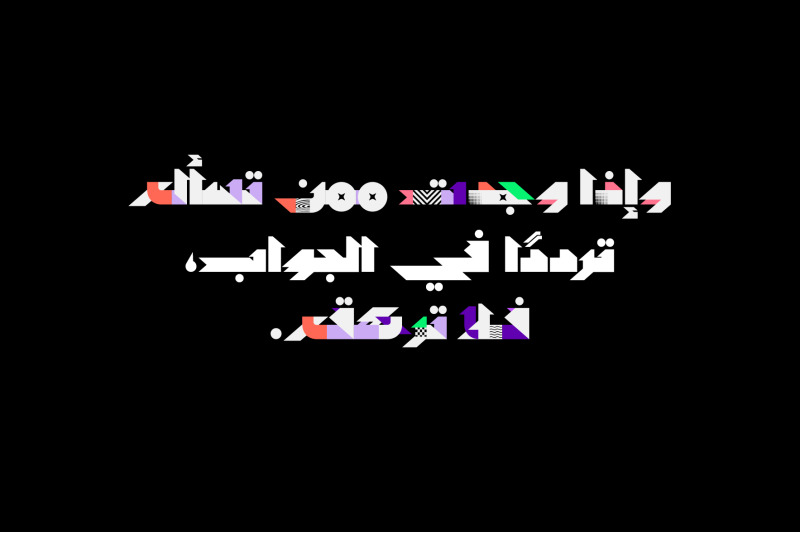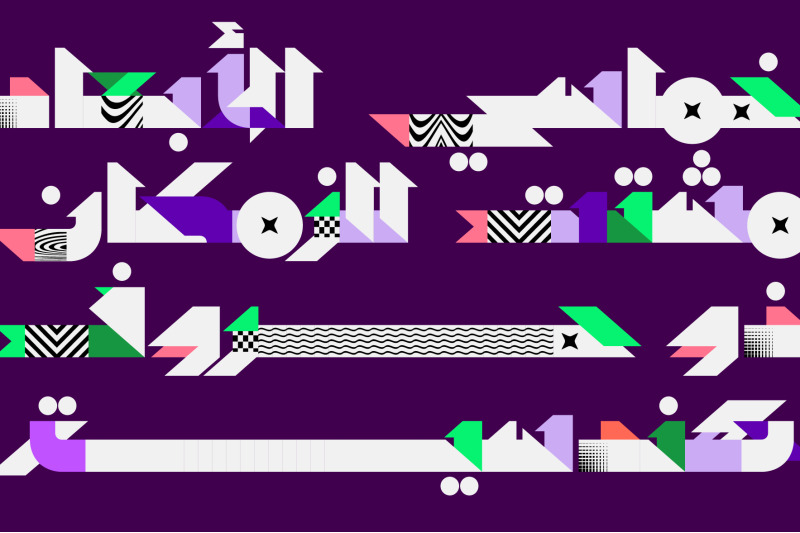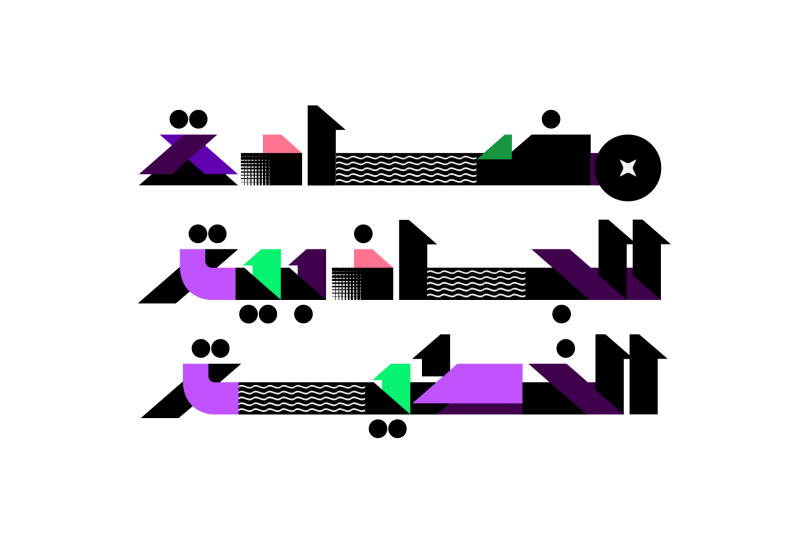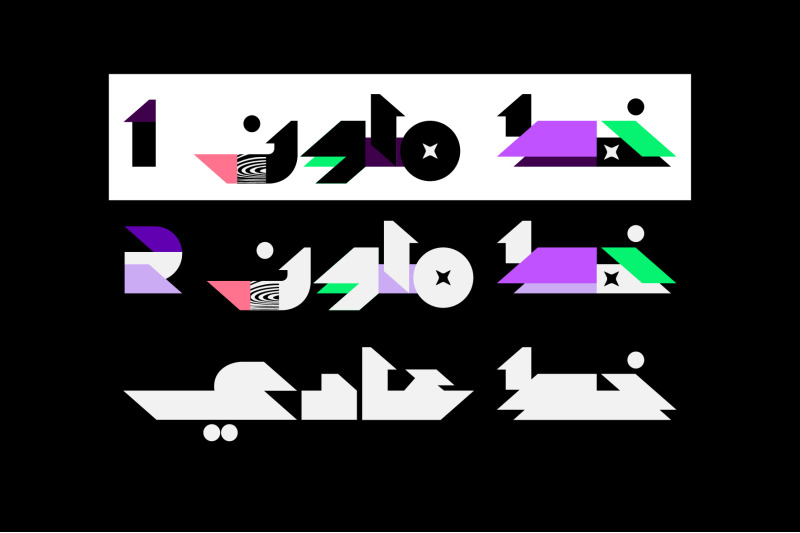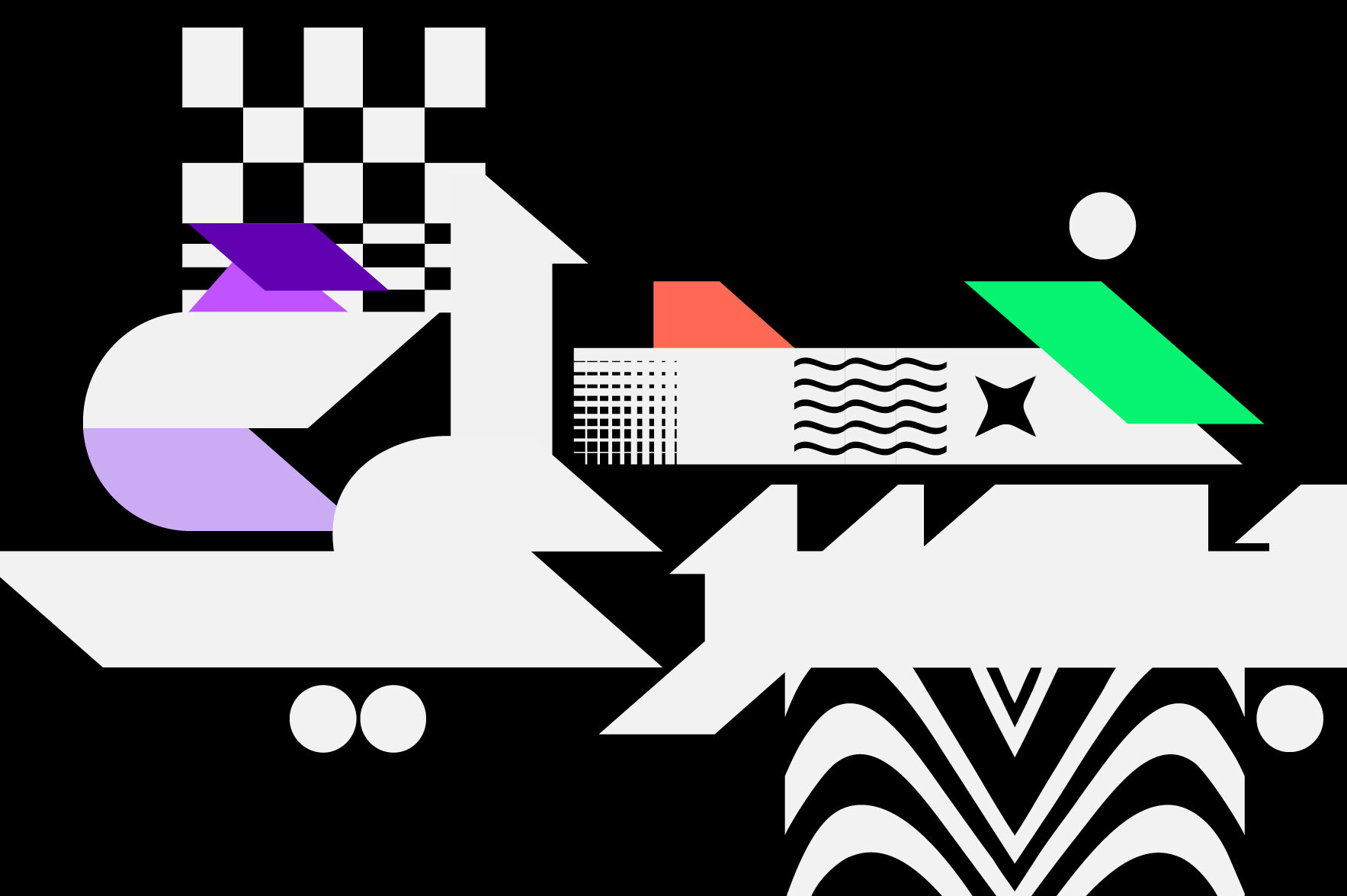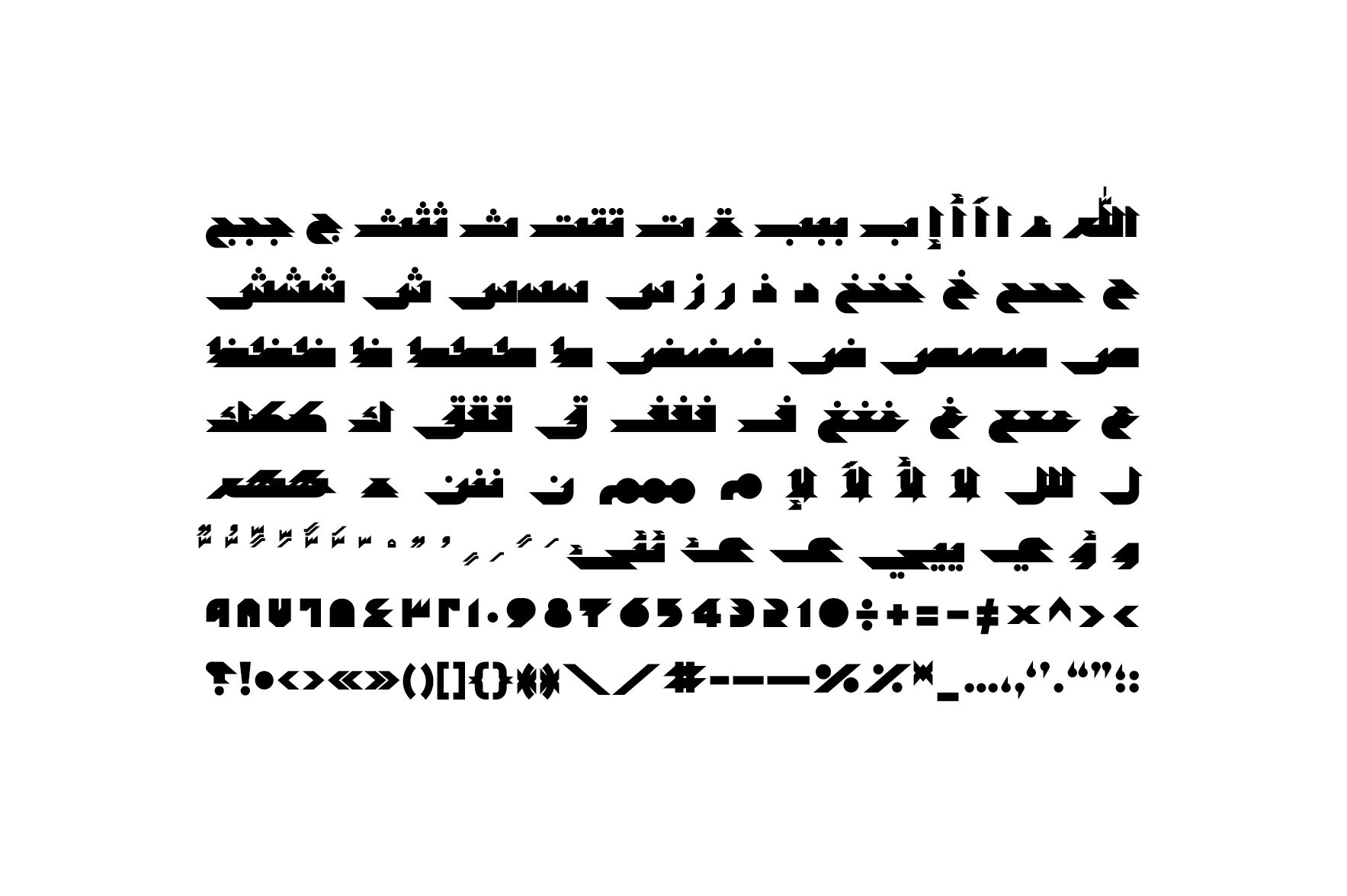
Manzour - Arabic Color Font
Manzour (the Arabic word for 'Prespective') is an Arabic display font that features solid geometric letterforms fused with design elements inspired by the Op Art movement. Manzour is an OpenType-SVG color font that comes in two styles (Colored1 and Colored2) along with a regular OTF font. Manzour is suitable for modern creative projects including web, print and mobile applications. It supports both Windows and Mac. Manzour is an OpenType-SVG font that comes in the following formats: SVG-TTF (vector) COLR-TTF (vector) SBIX (raster) OTF (basic black and white) Software compatibility:  Windows 10 (or above) macOS Mojave (or above) Adobe CC 2019 (or above) Microsoft Office 2020 (or above). Before you install the font, please make sure that both your operating system and your application support the Arabic language.